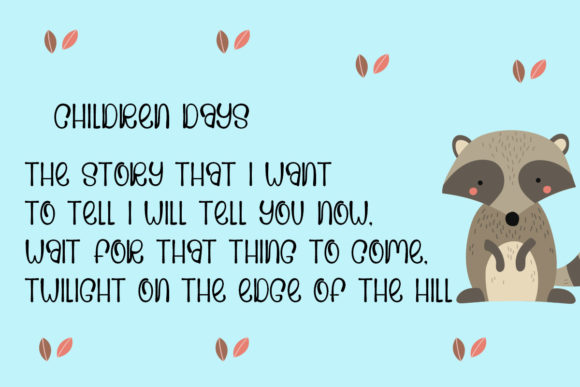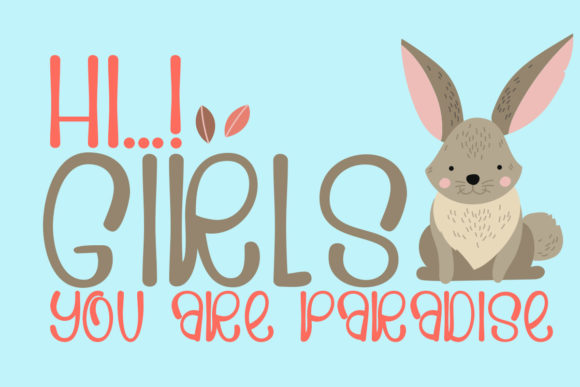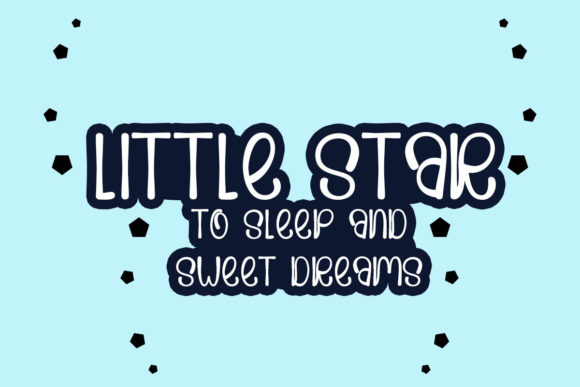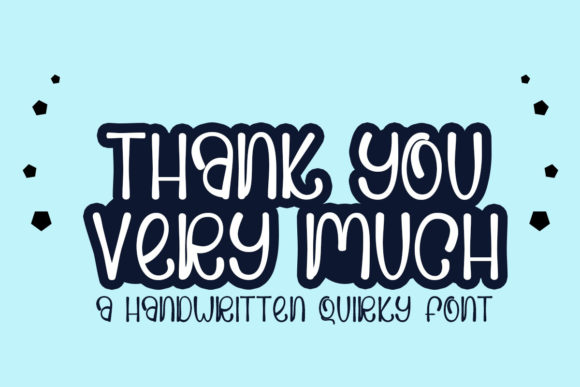
Introduction to Cooking Ware Font
Cooking Ware is a cute & friendly display font.
Get inspired by its incredibly youthful feel Add this chunky lettered font to your designs and notice how it makes them come alive.
Key Features of Cooking Ware Font